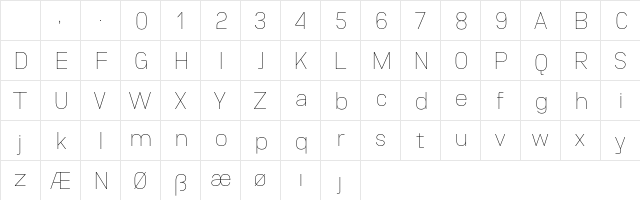
Complete Unione *Demo ExtraLight DEMO glyph index. Displaying only characters natively supported by Unione *Demo ExtraLight DEMO font.
Unione *Demo is a composed and adaptable typeface that performs quietly and consistently across a wide range of design contexts. Its slender proportions lend an understated elegance to any composition.